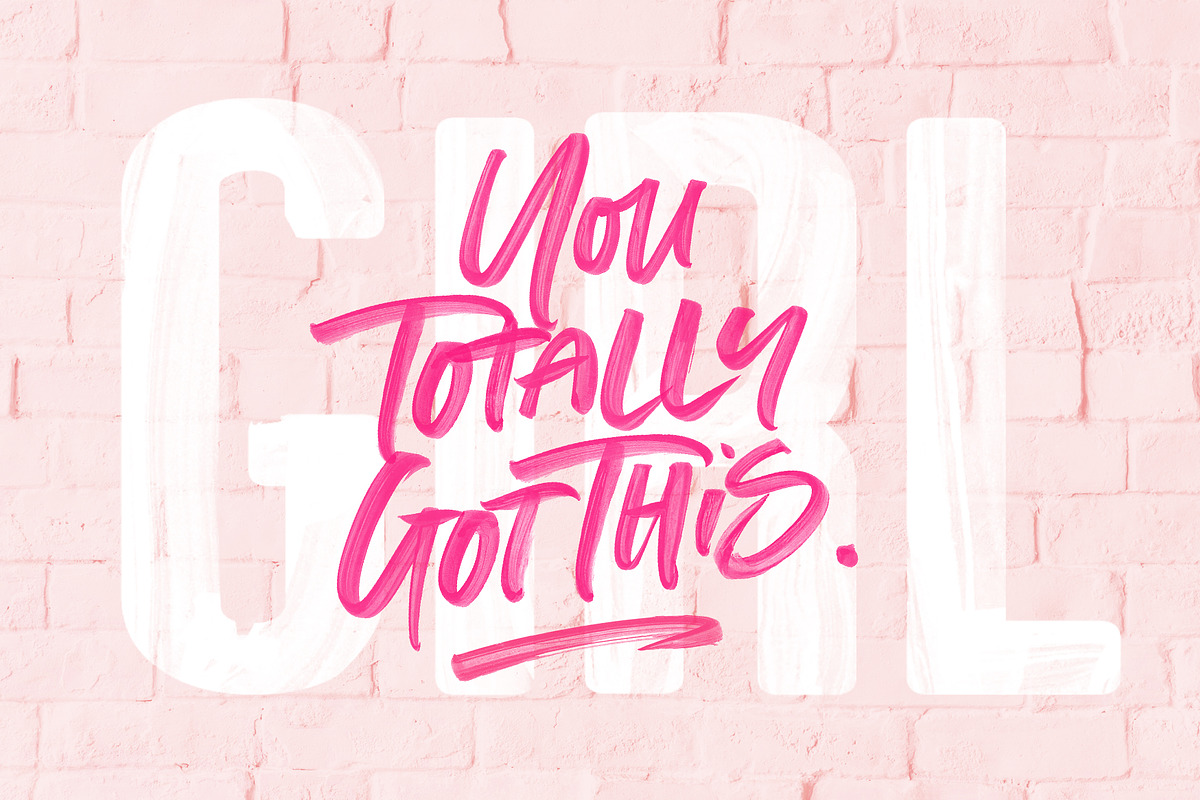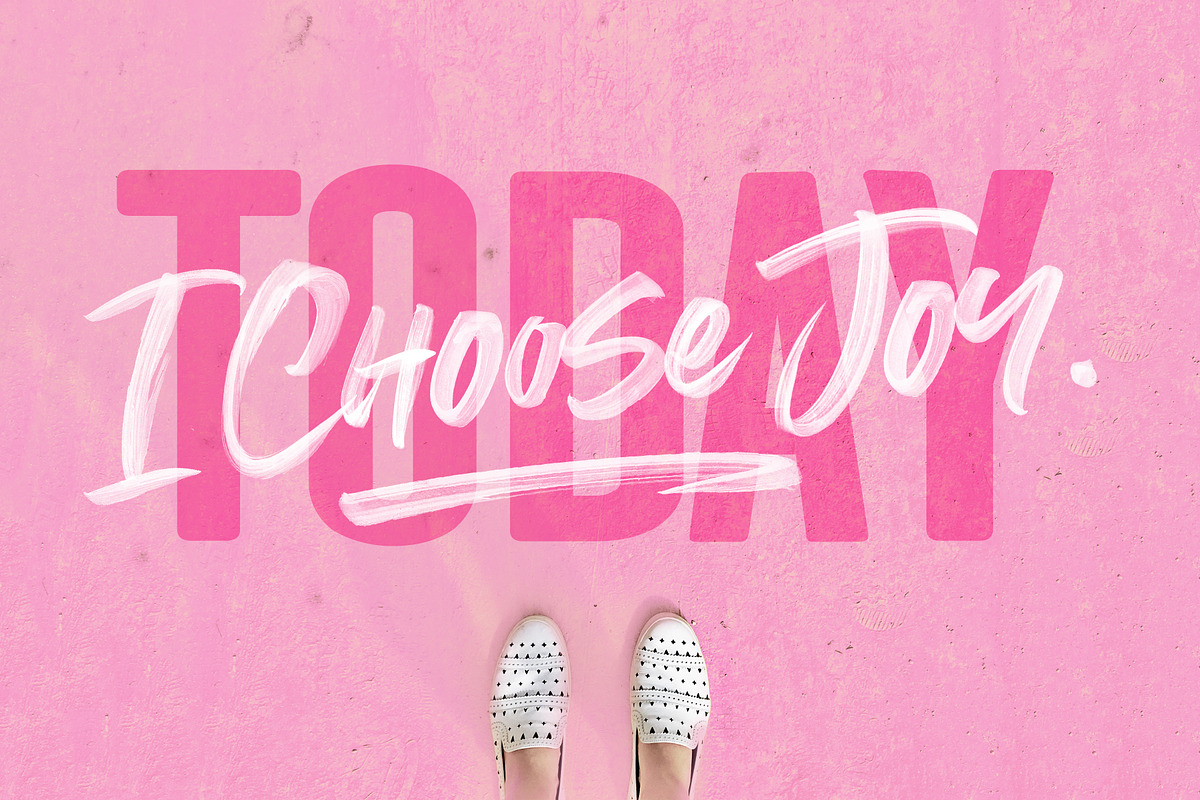
Summer Loving Font
Throw on some shades and get summer ready with the new Summer Loving Font Collection! Introducing the brand new set of ultra-textured SVG Fonts designed with high resolution paintbrush detail built right in – No need to spend hours creating your own hand-painted letters – just type these babies right onto your project.
New to SVG fonts is support for Opentype Ligatures and Alternate letters – which I’ve added in abundance for you in this one – to make your projects look truly authentic and realistic.